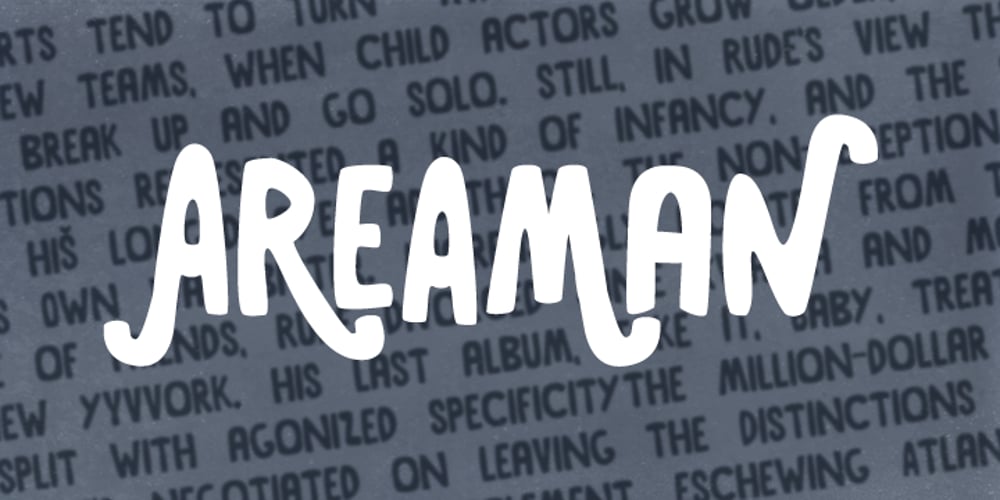
Areaman OT
Areaman OT font
Areaman OT Font Family was designed by published by AdultHumanMale. Areaman OT contains 1 styles and family package options. Areaman OT is a fun chunky ALL CAPS display font. I wanted it to look blocky and loud, So it can scream from Posters and Headlines. It has over 300 glyphs, several variations on the standard alphabet and all those extra pesky foreign features. It also has various letter pairing with extra ligatures and flourishes available through OpenType or your Glyphs palette. This upgraded version is now coded with OpenType features to create a randomised bespoke look and feel to your copy.